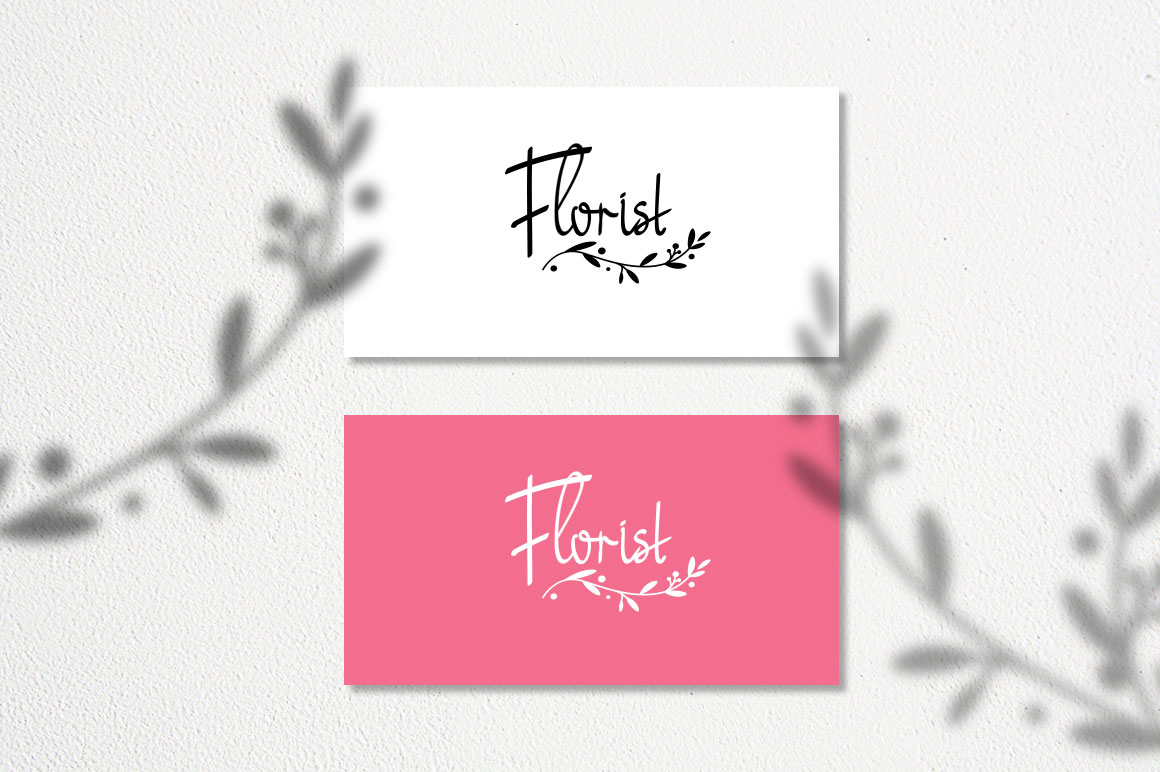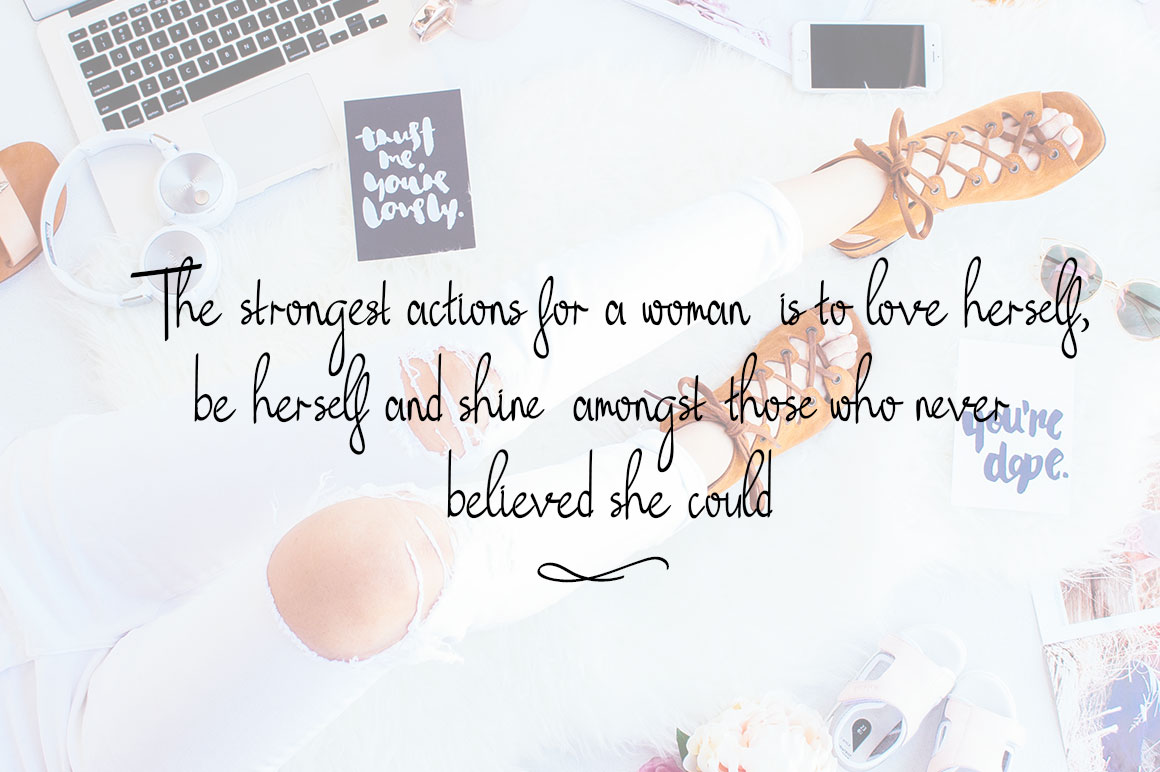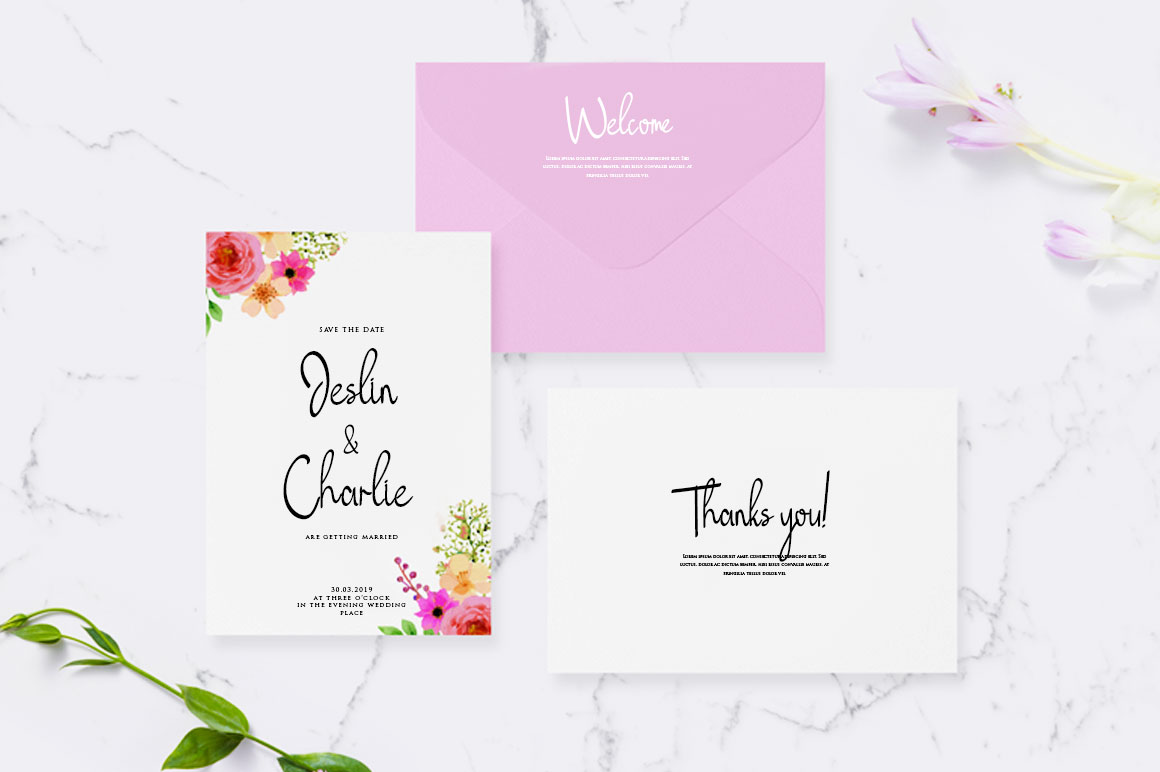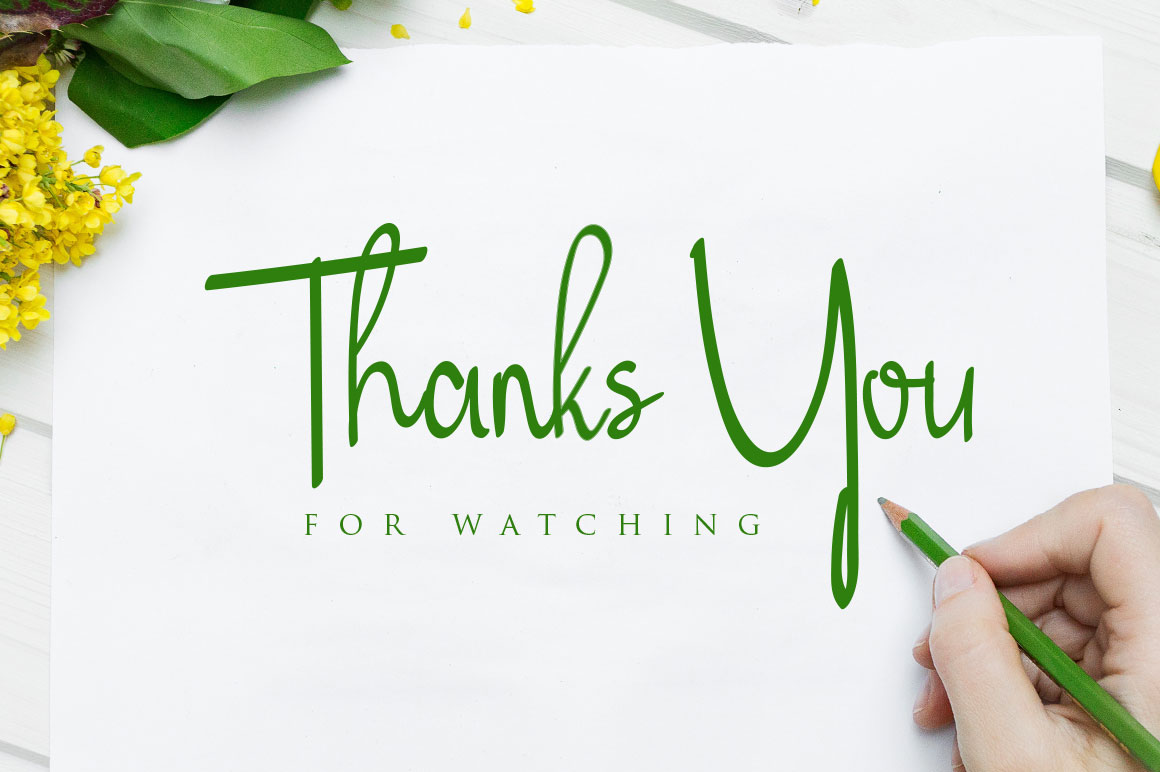
Proudly present Another lovely font “Just Blossom” can be interpreted beautiful.We keep this font looks feminine, playful and easy to use. Just Blossom is the great choice for watermark on photography, signature or signature logo design, quotes, album cover, business card and many other design project. Just Blossom is here to make your work to high level!!!